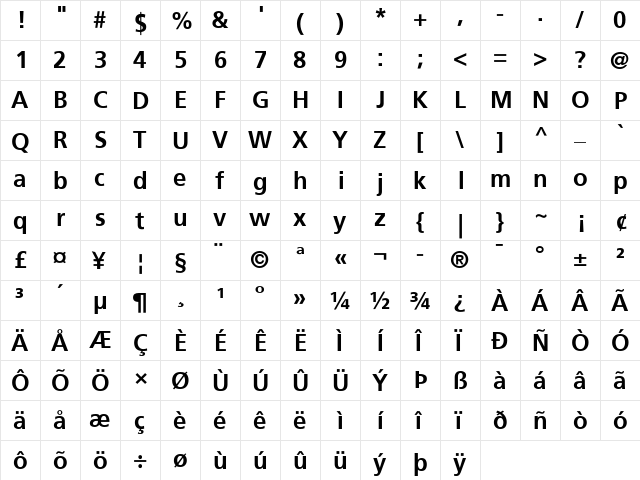
Frutiger 45 Light Bold
Design Context for Frutiger 45 Light Typeface
Frutiger 45 Light offers clean, dependable letterforms without strong stylistic allegiance, making it a practical choice for designers who need flexibility. Its bold stroke weight gives it real presence on the page.
Pro Tip: Pair Frutiger 45 Light with a font of contrasting weight or personality to build a more expressive typographic hierarchy.